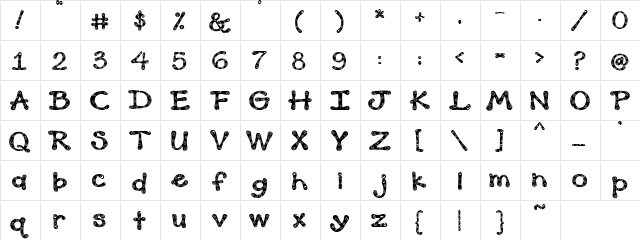
PC Thick Swirls Regular
Design Context for PC Thick Swirls Typeface
PC Thick Swirls is built around its visual character rather than neutral utility — its distinctive forms are designed to make an impression at display sizes.
Font Pairing: Pair with a clean neutral sans-serif for body copy to let PC Thick Swirls's character lead without overwhelming the composition.
Pro Tip: Use PC Thick Swirls exclusively at display sizes — it was designed to be seen, not read at length. Let a neutral companion handle body copy.